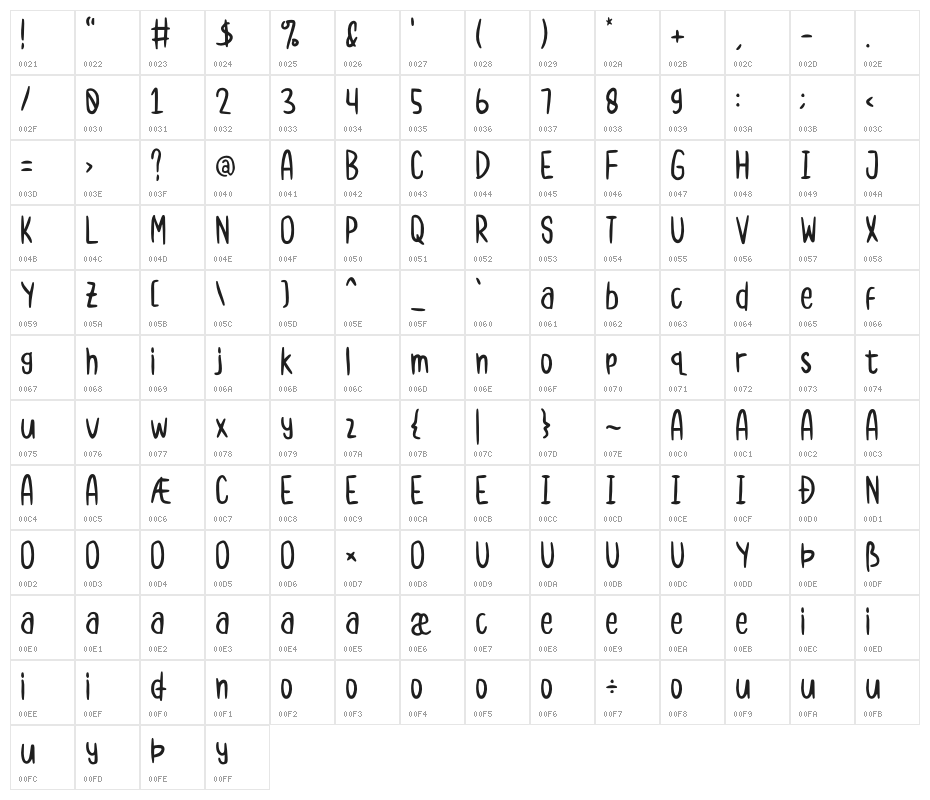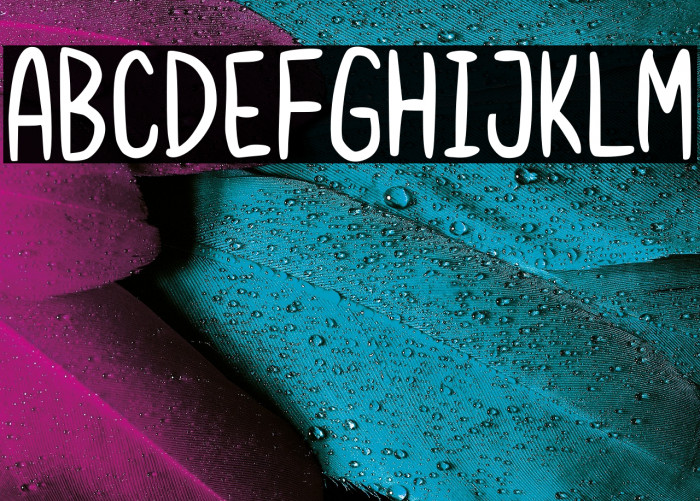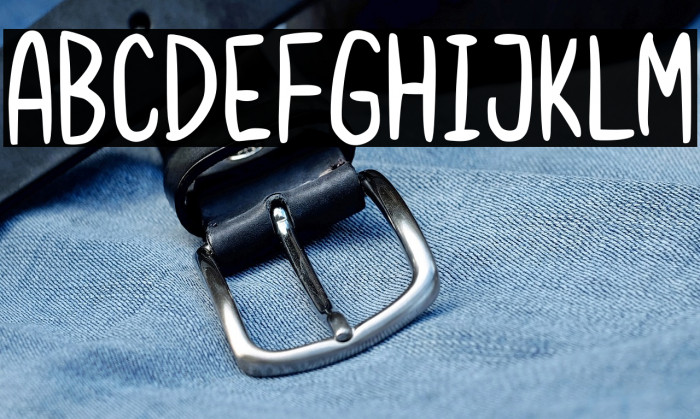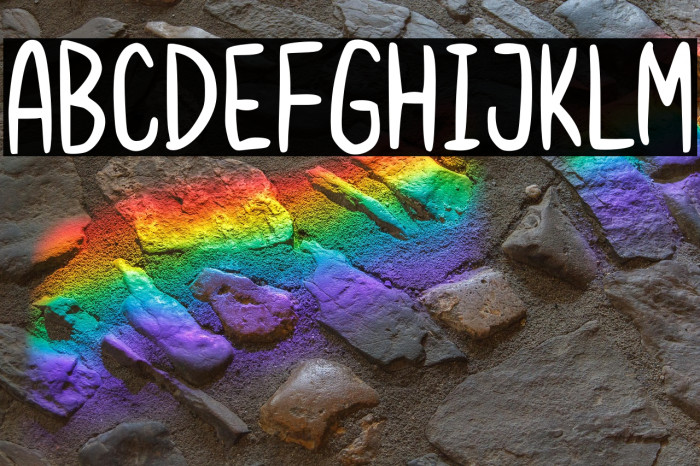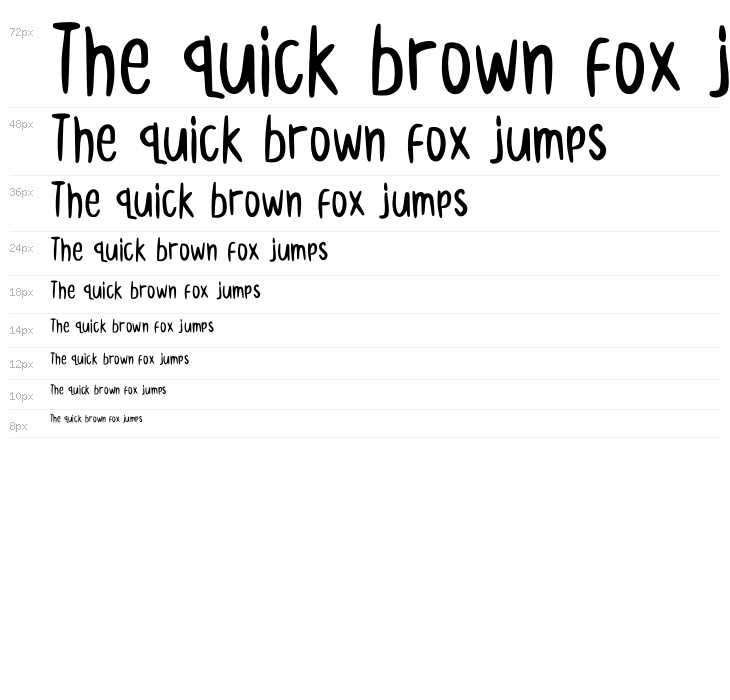
Jackal Nest GT Demo Font
Jackal Nest GT Demo Description
This font features a playful and informal handwritten style, characterized by its rounded and slightly irregular letterforms. The uppercase and lowercase letters maintain a consistent flow, giving it a casual and approachable appearance. The numbers and special characters are crafted with the same whimsical touch, making them blend seamlessly with the alphabet. The overall design is reminiscent of a personal note or a doodle, adding a touch of personality and warmth to any text. Its legibility and charm make it suitable for a variety of creative projects.